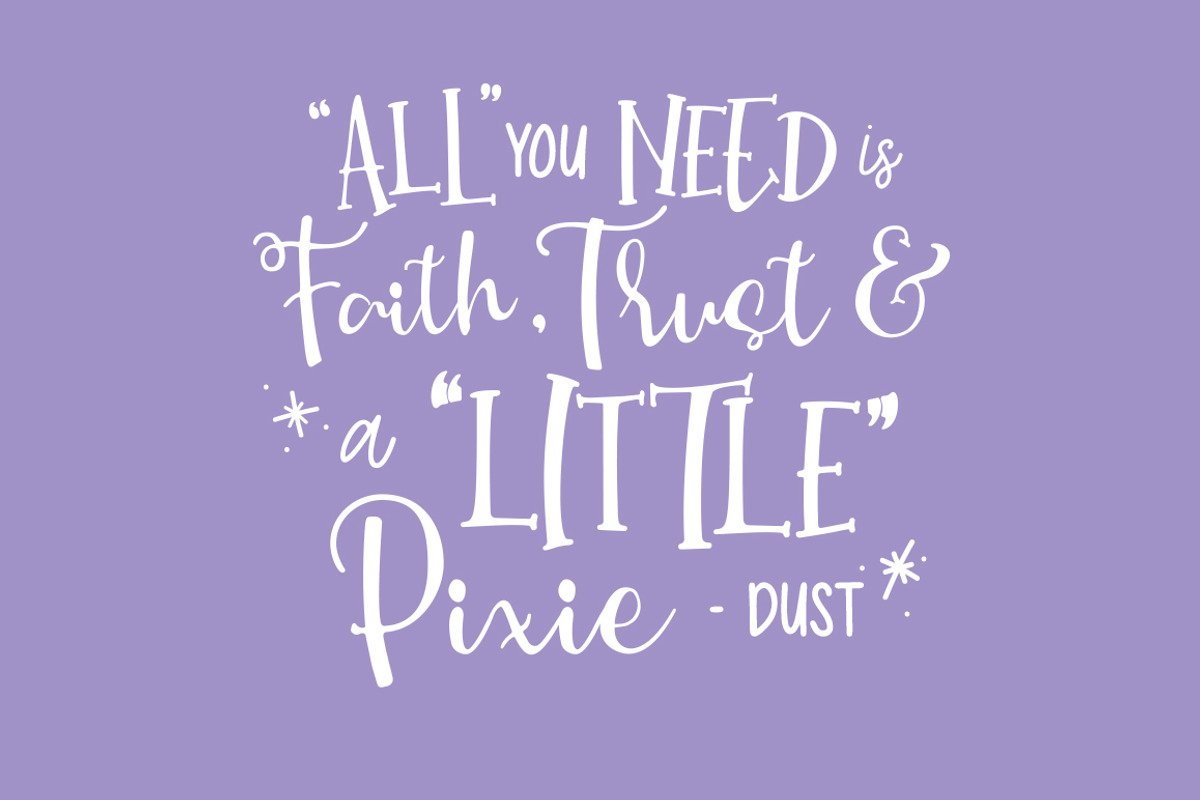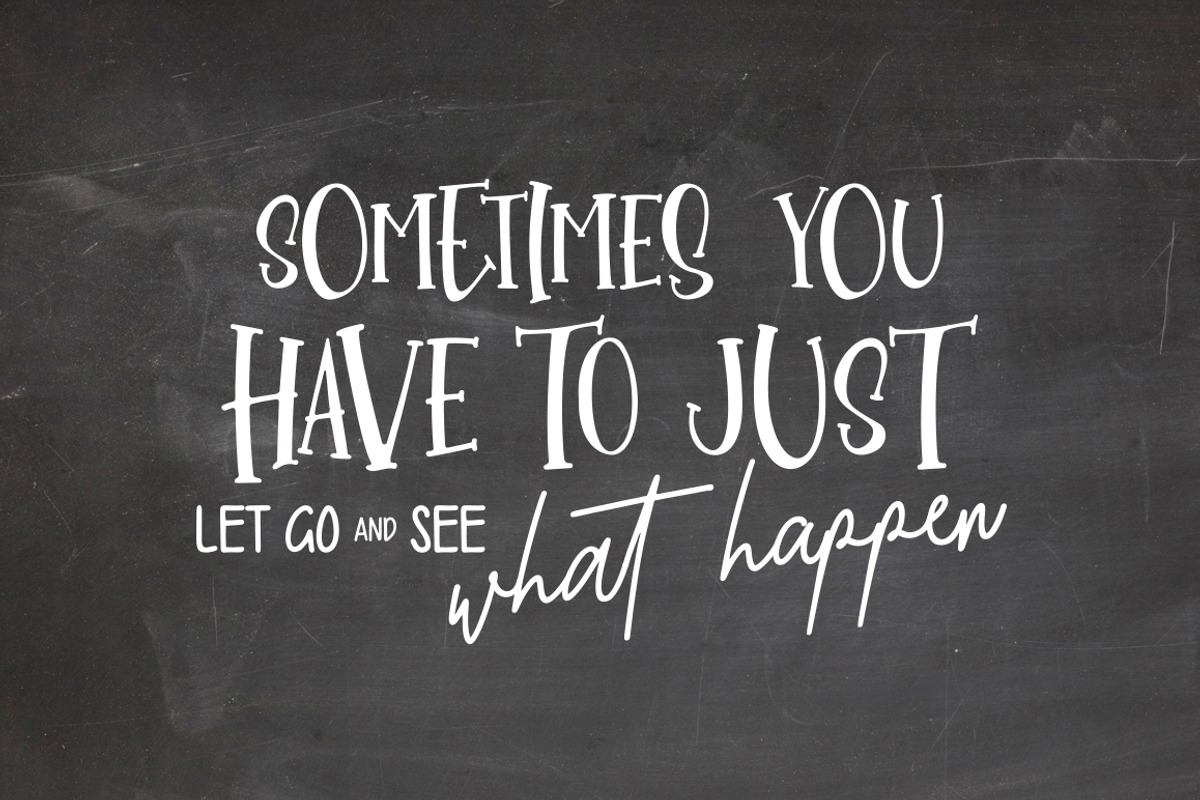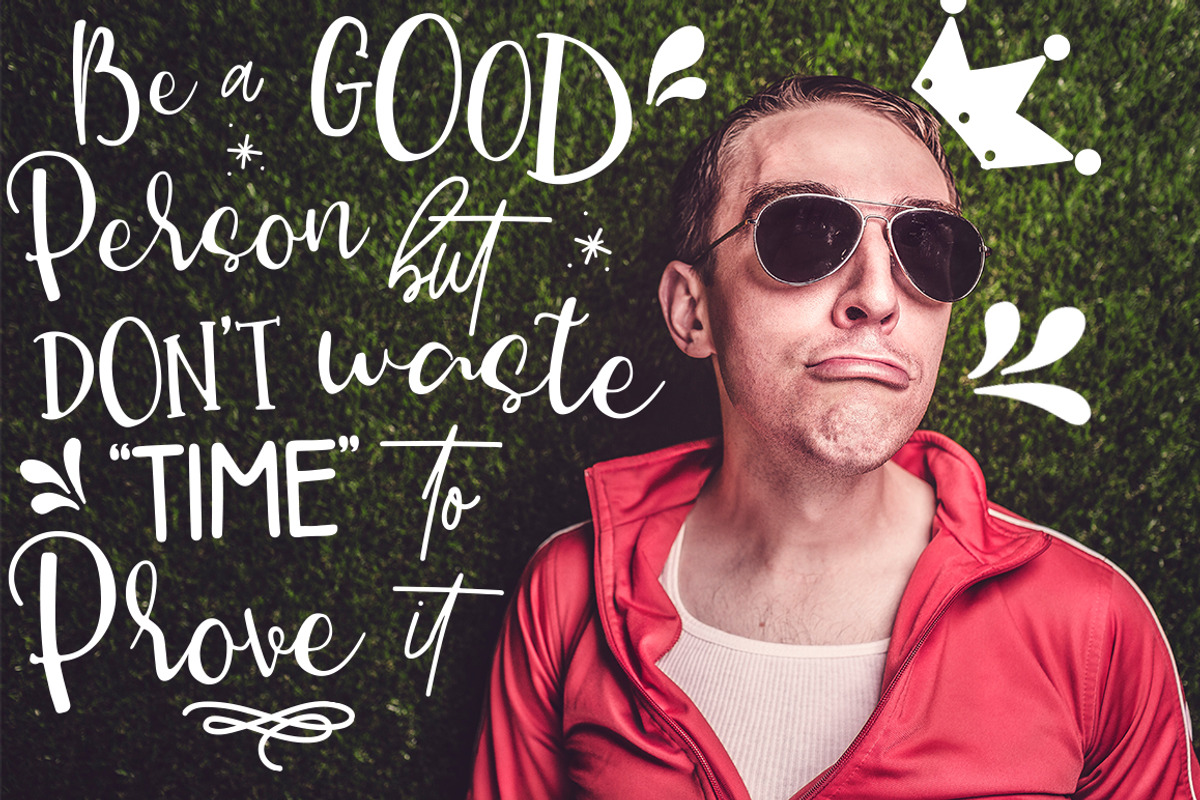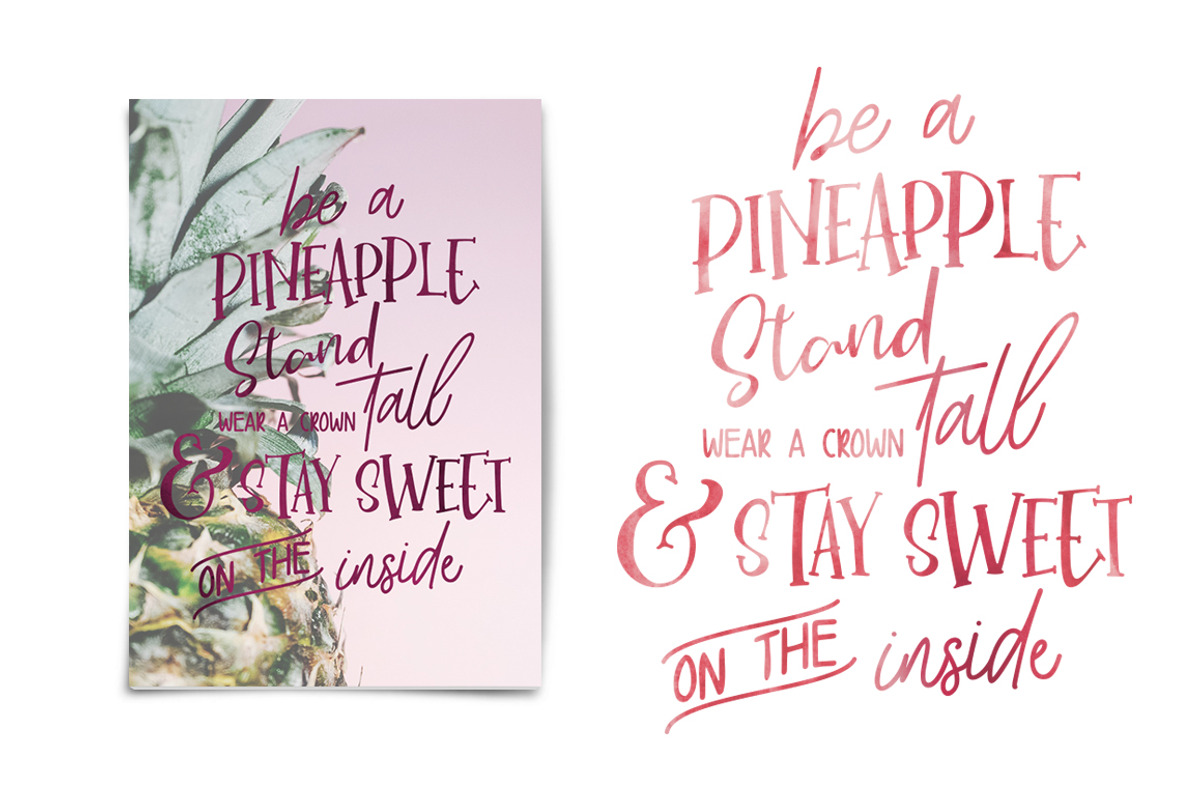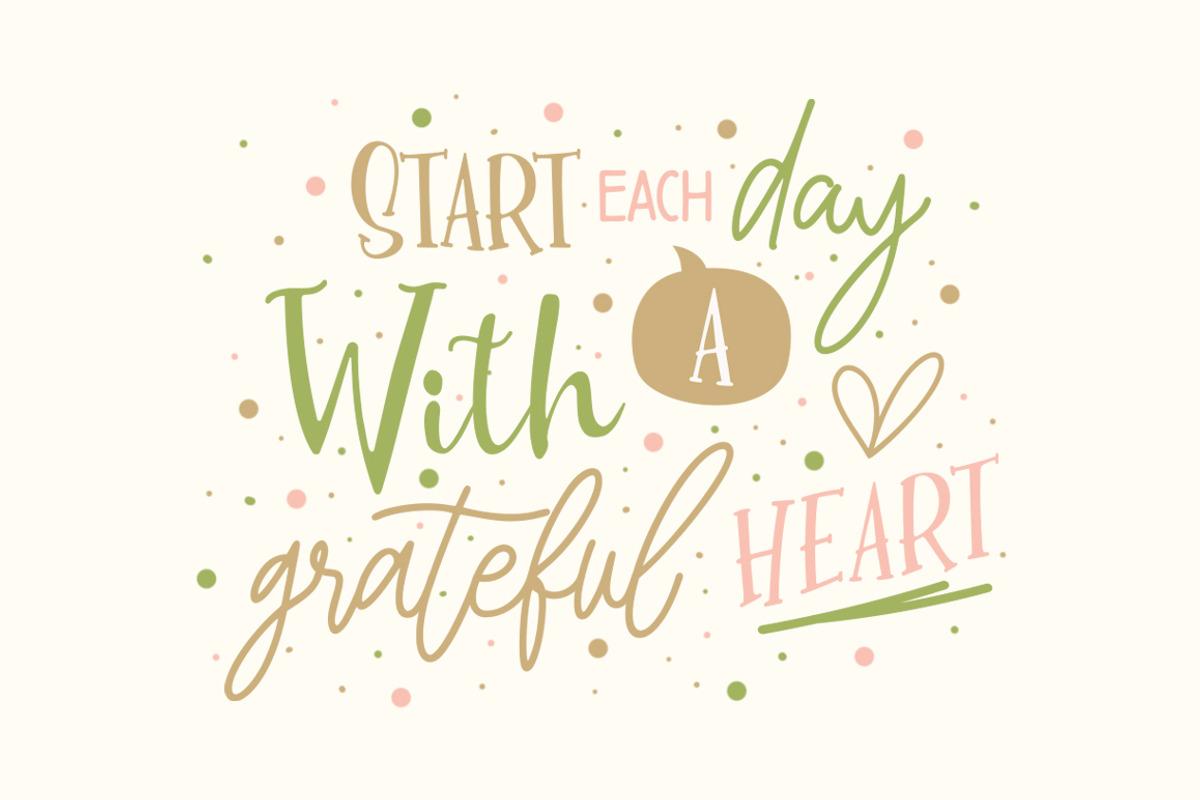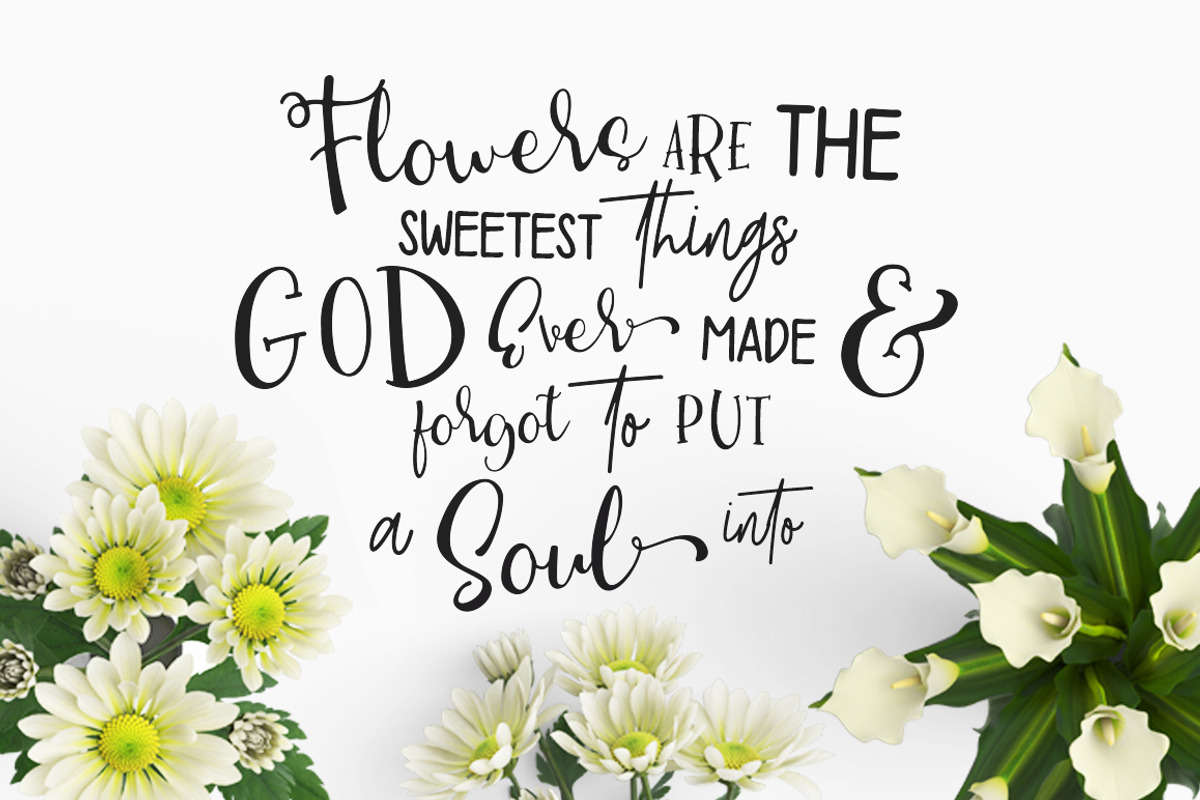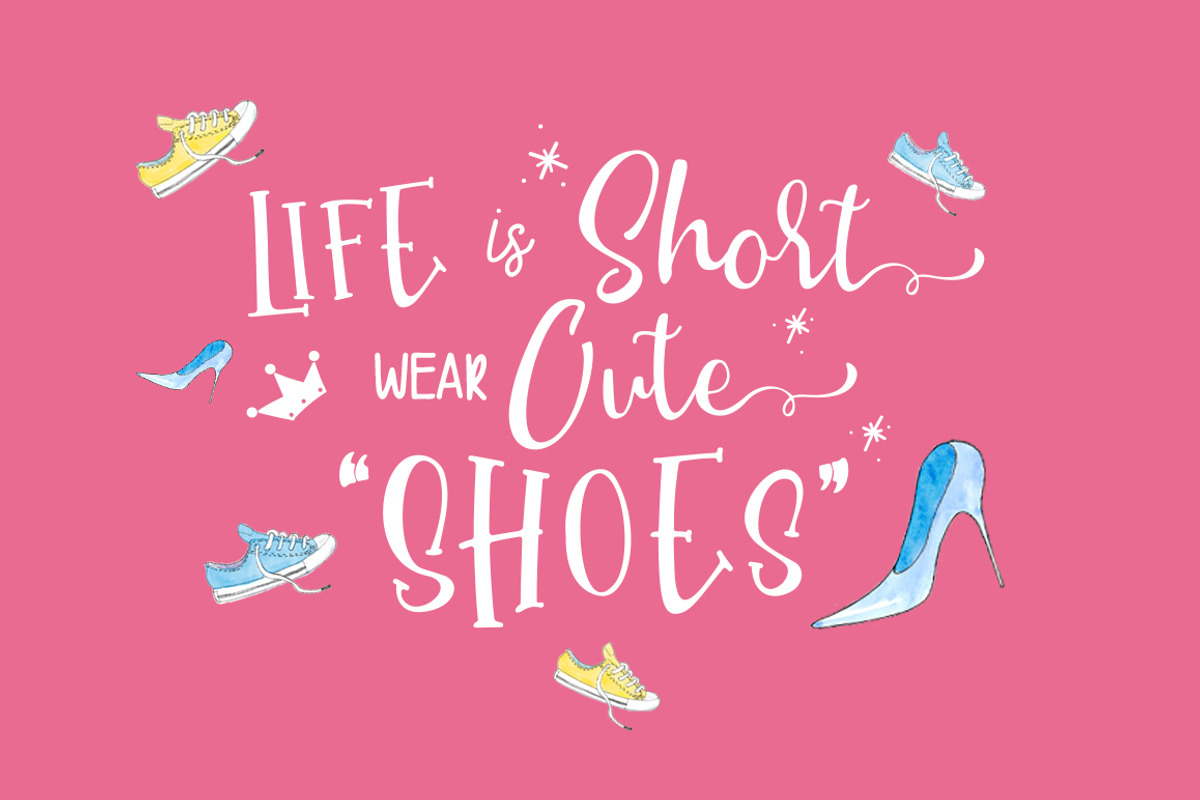
New Monday | Font Pack
New Monday is a new handwritten font pack from us, this font is really new and fresh. With four different font characters, you can play your imagination in designing. This font is very easy to use and really playful. New Monday perfect for logos, printed quotes, invitations, cards, product packaging and another project design.
New Monday Sans • This font all caps only, with unique characters.
New Monday Serif • This fonts have uppercase and lowercase, and if you create a word, you can make like a bouncing effect. Like image #3
New Monday Script One • This font have two different style, uppercase acts as lowercase. so in this font have two lowercase and its terms can be combined as alternative.
New Monday Script Two • This fonts have uppercase, lowercase, and alternate characters so you can play around with all of these fonts and create something funny and awesome.